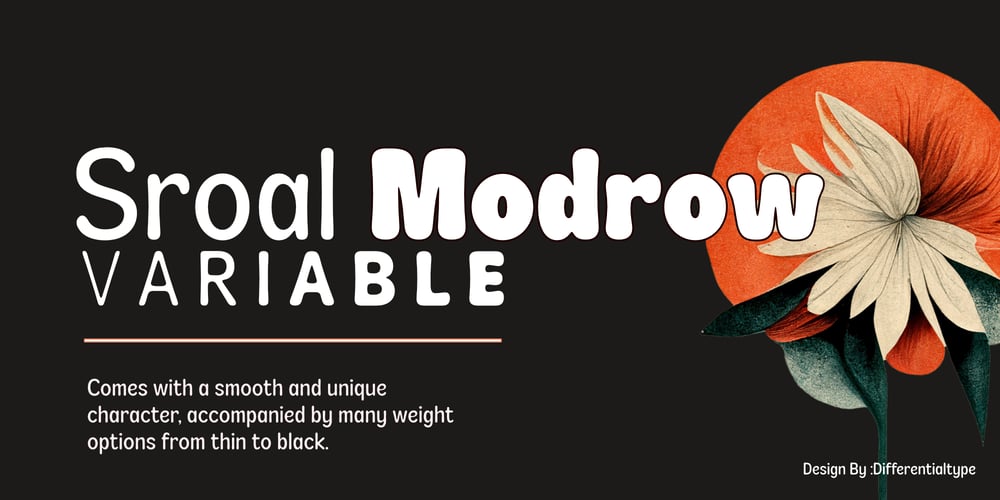
Sroal Modrow Variable
Sroal Modrow Variable font
Sroal Modrow Variable Font Family was designed by Sidik Sidik and published by Differentialtype. Sroal Modrow Variable contains 1 styles and family package options. Introducing Sroal Modrow Variable, a family of sans display fonts that offer a refined design in every curve and angle. The impressive uniqueness of Sroal Modrow is sure to enhance all your creative endeavors, be it creating titles, writing headlines, perfecting logos, branding products, or typing general documents.Sroal Modrow Variable gives you a unique and versatile set of styles, ranging from thin to black, with the addition of italics. Incorporate Sroal Modrow Variable in all your designs and experience the impressive presence and incredible visual appeal it brings, making your work stand out like never before.